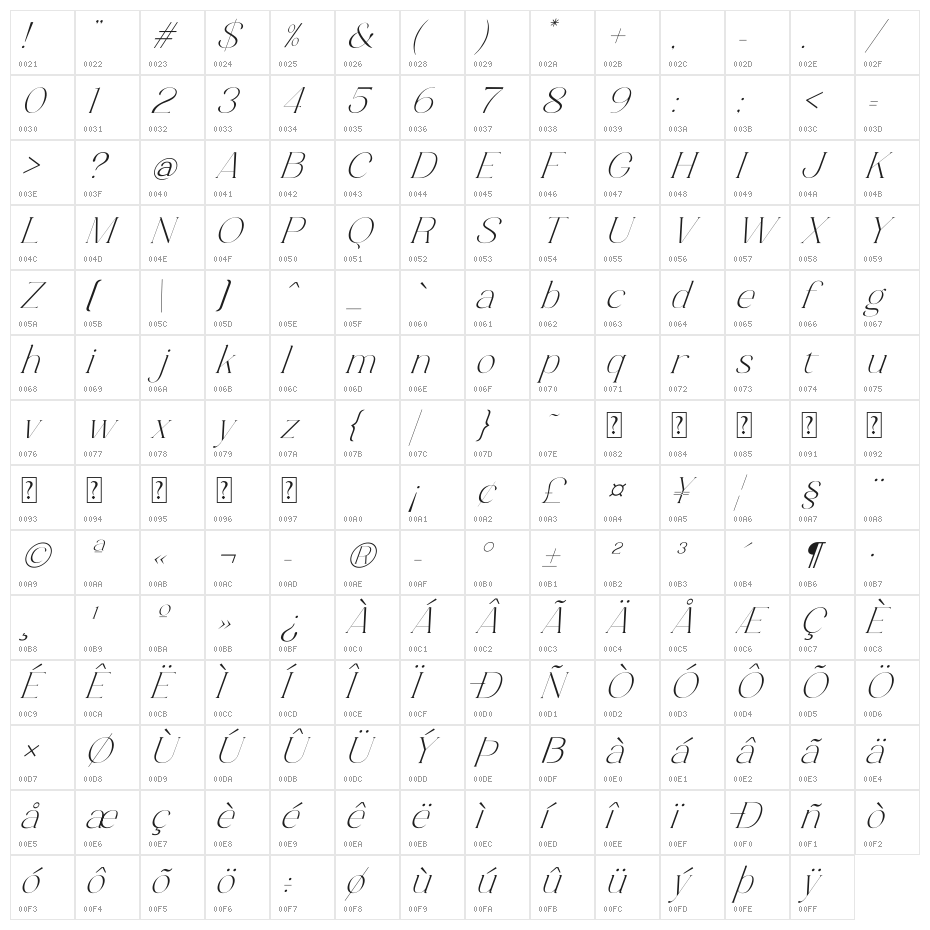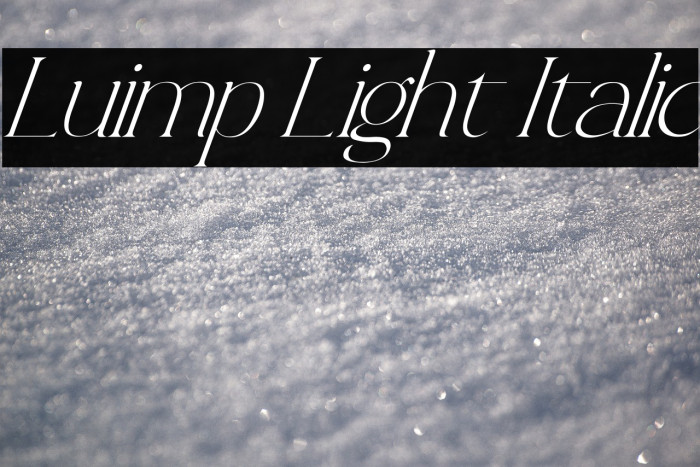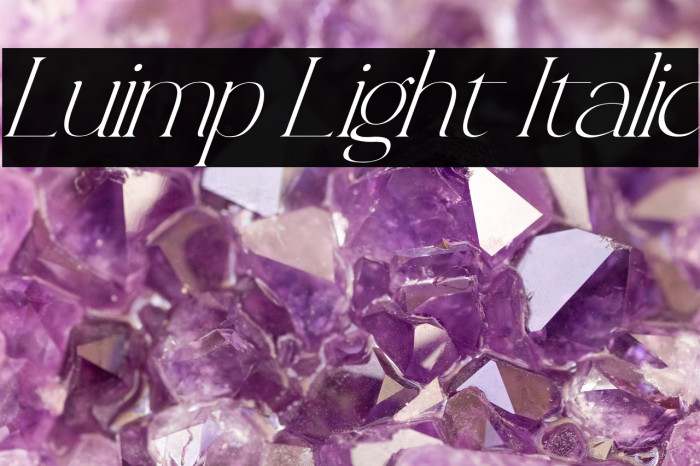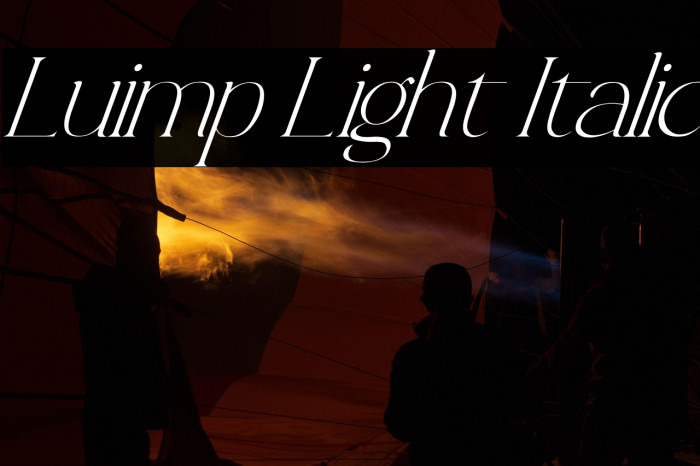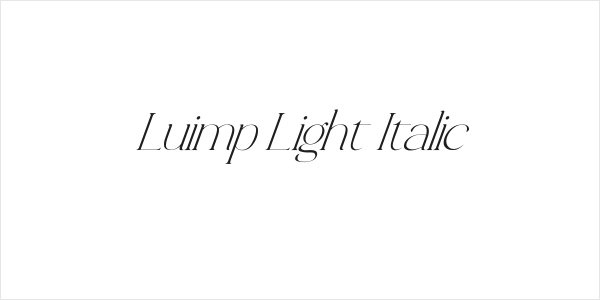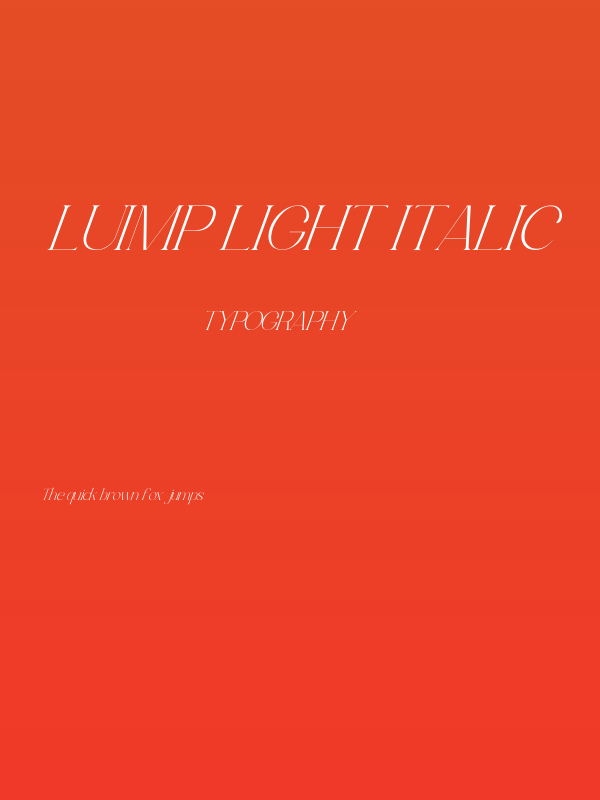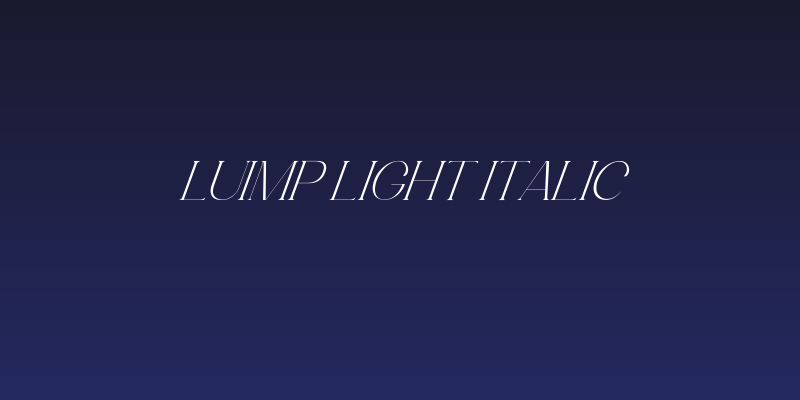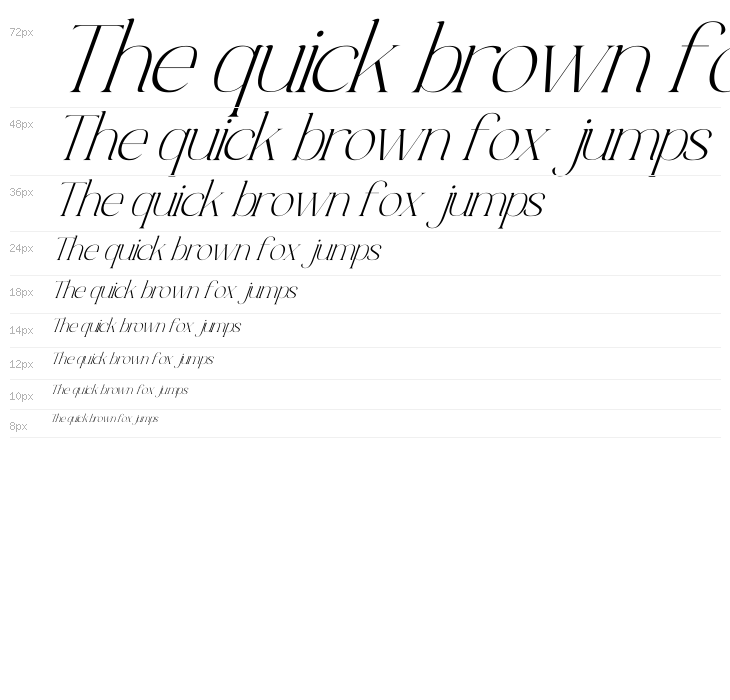
Luimp Light Italic Font
Luimp Light Italic Description
This elegant typeface features a refined and sophisticated design with a light, airy feel. The letters are italicized, giving them a graceful slant that adds a sense of movement and fluidity. The strokes are thin, contributing to a delicate appearance, while maintaining clarity and readability. The font showcases a high contrast between thick and thin strokes, enhancing its stylish and modern look. The character spacing is normal, ensuring that each letter is distinct yet harmoniously connected. This font is ideal for projects that require a touch of elegance and sophistication.